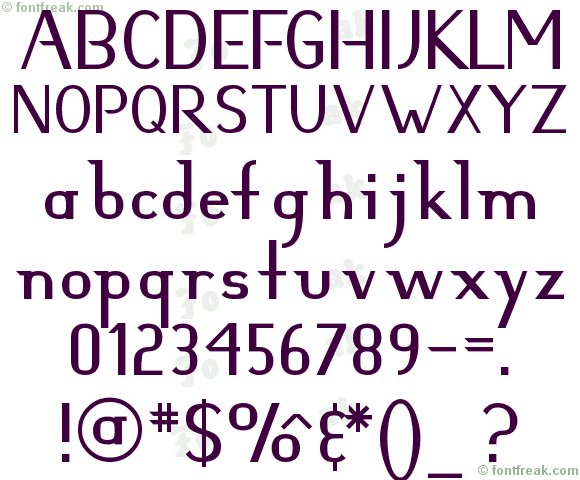
About Hunter
The Hunter font, created by The Sadalmelik Fontorium, is a striking display typeface that embodies a modern aesthetic with a touch of elegance. Released as freeware in 1998, version 2.0 of this font showcases a unique blend of boldness and sophistication, making it an excellent choice for a variety of design projects. Its geometric forms coupled with clean lines deliver a contemporary feel, while its slightly condensed letterforms create an efficient use of space, ensuring readability without sacrificing style.
Visually, the Hunter font features a medium stroke weight with minimal contrast, giving it a sturdy appearance that stands out in both print and digital formats. The spacing between characters is well-balanced, allowing for clear legibility, which is essential for impactful design. This font is devoid of excessive decorative elements, but its straightforward design makes it versatile for various applications.
The Hunter font is particularly well-suited for wedding invitations, where its modern yet elegant style can enhance the overall aesthetic. It also works beautifully for movie posters, providing a bold statement that captures attention. Small business owners can utilize it in restaurant menus to convey a contemporary vibe, while graphic designers might find it perfect for branding projects that require a unique yet approachable font. Content creators can leverage the Hunter font in social media graphics to ensure their content stands out in a crowded space.
What makes the Hunter font truly remarkable is its ability to blend simplicity with visual appeal, allowing it to complement a wide range of projects. With the Hunter font free download available, designers and creators can easily incorporate this distinctive typeface into their work, enhancing creativity and communication in their designs.